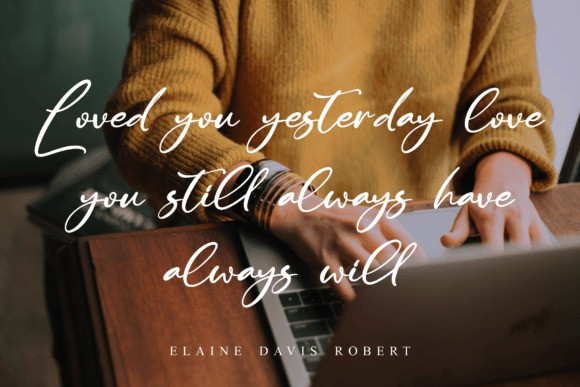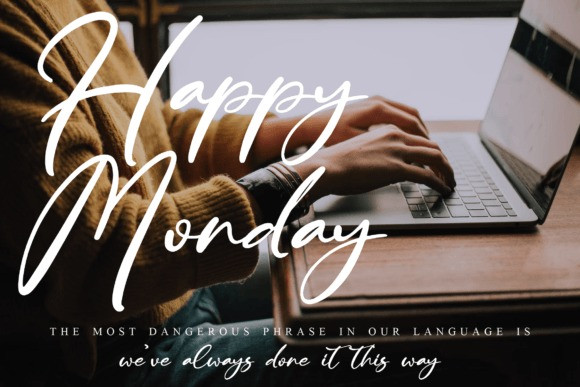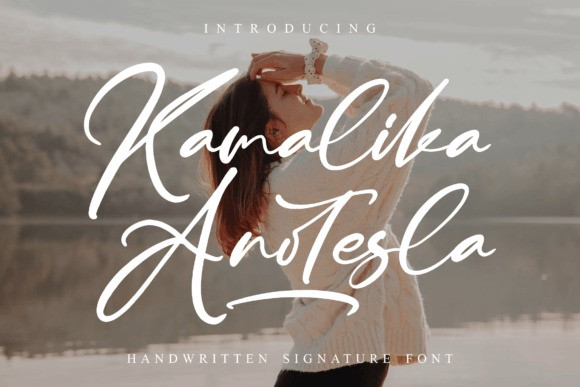
Kamalika Anotesla Font
Kamalika Anotesla – Handwritten Signature Font is suitable for any projects such as logos, branding projects, homeware designs, product packaging, mugs, quotes, posters, shopping bags, t-shirts, book covers, name cards, invitation cards, greeting cards, labels, photography, watermark, special events, and all your other lovely projects that need a beautiful script taste.